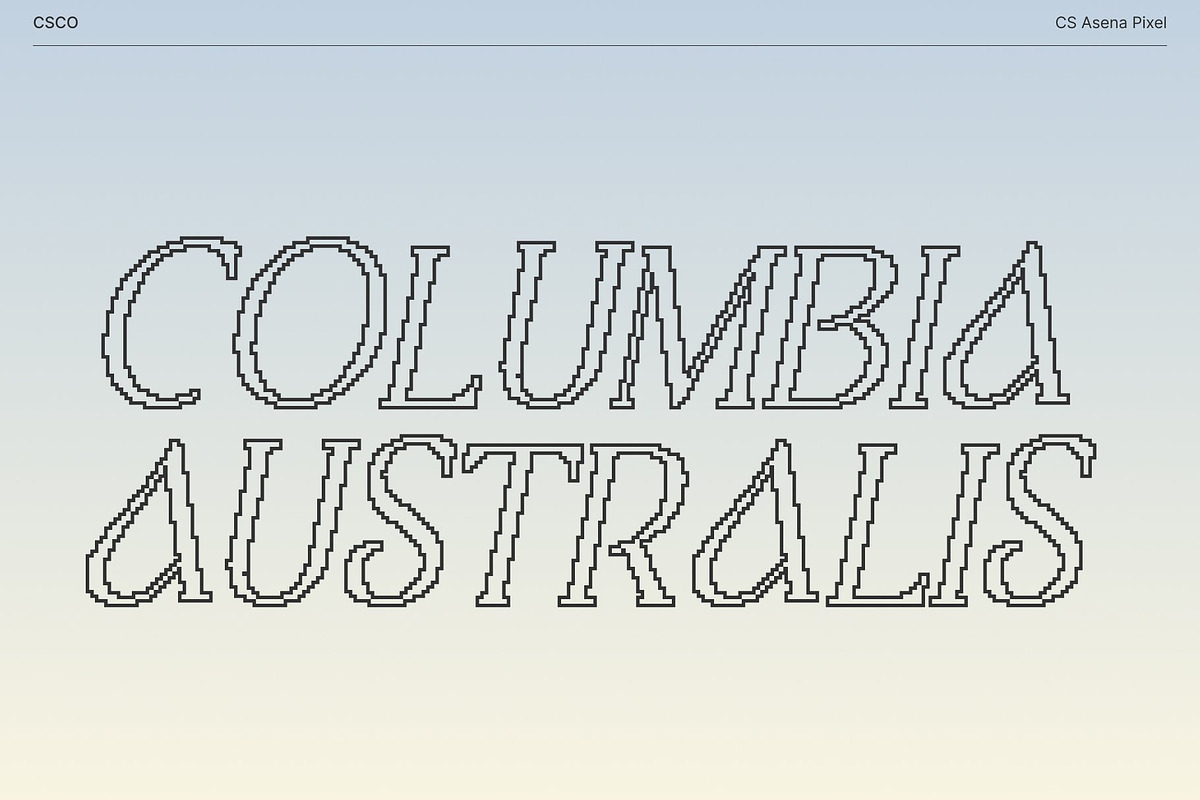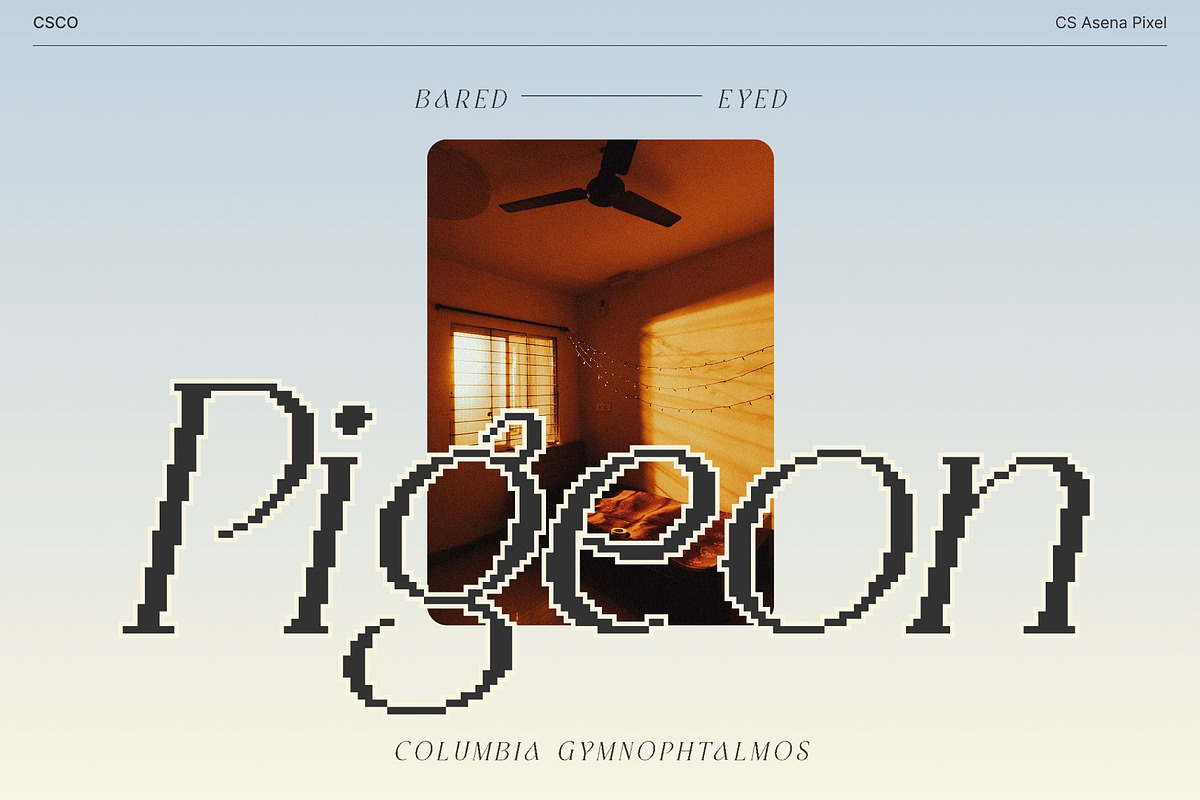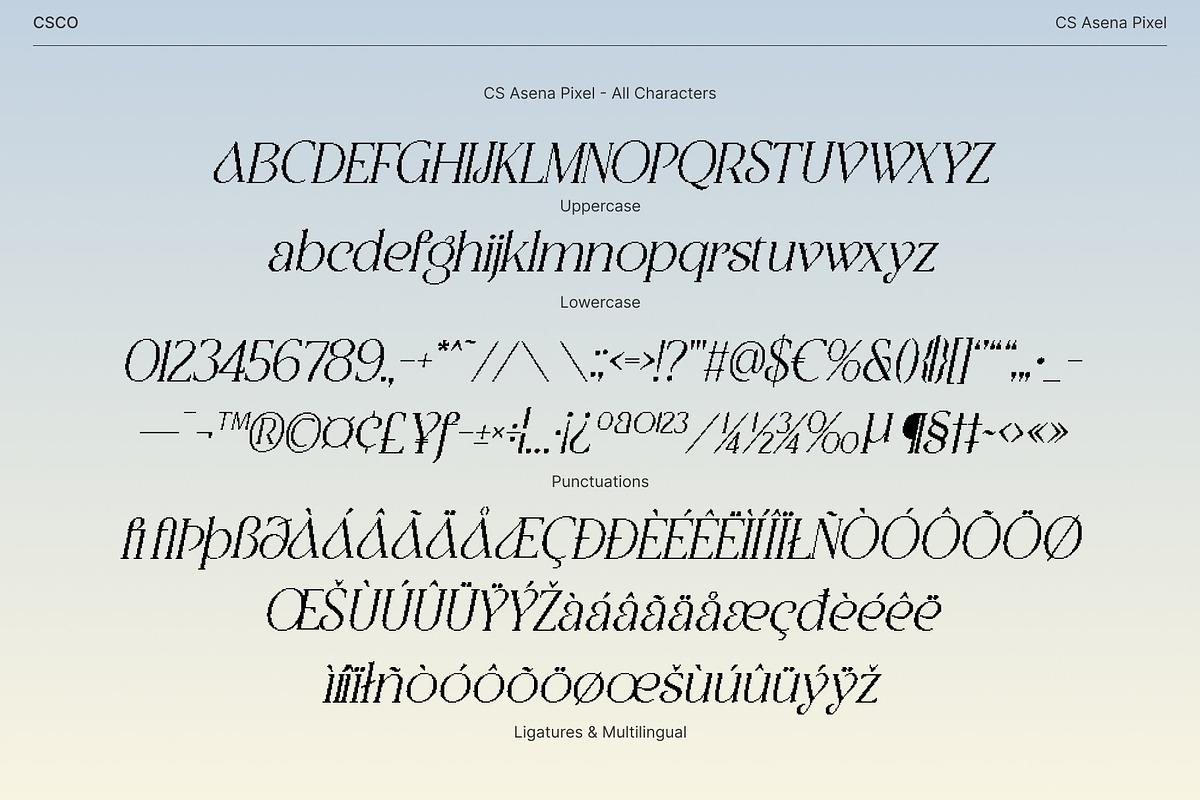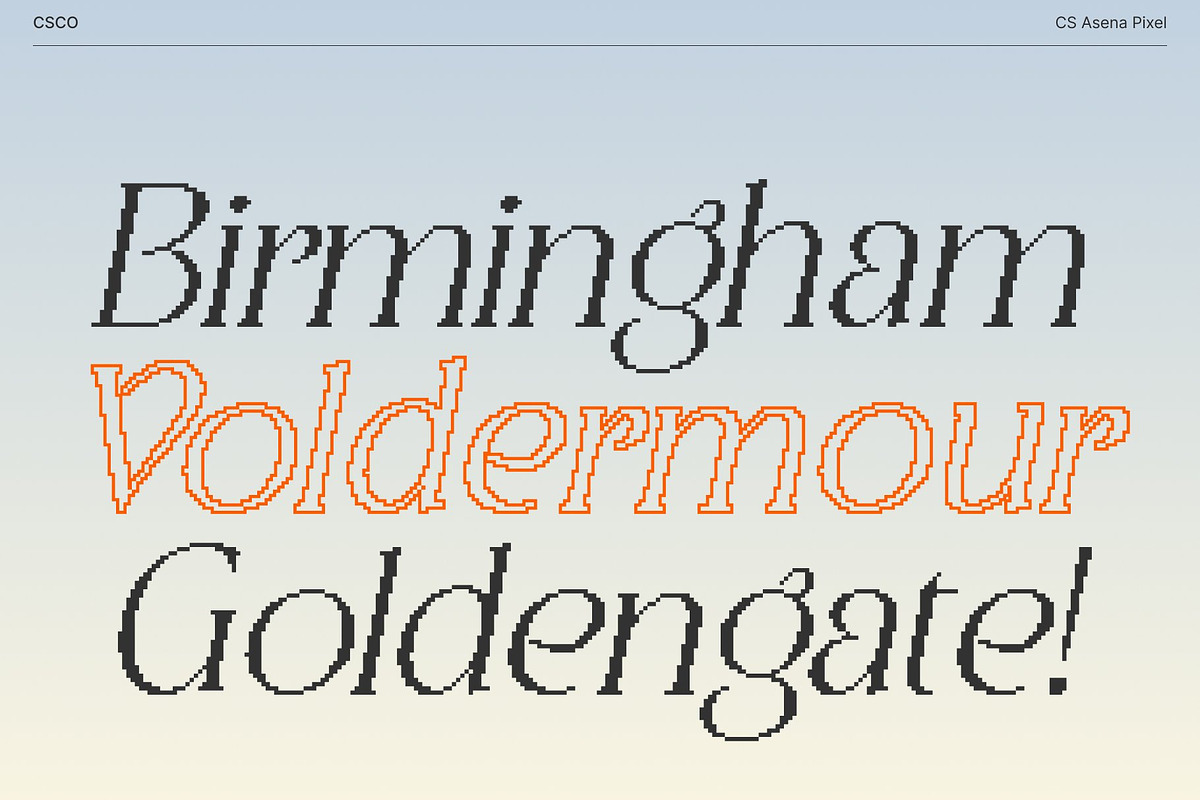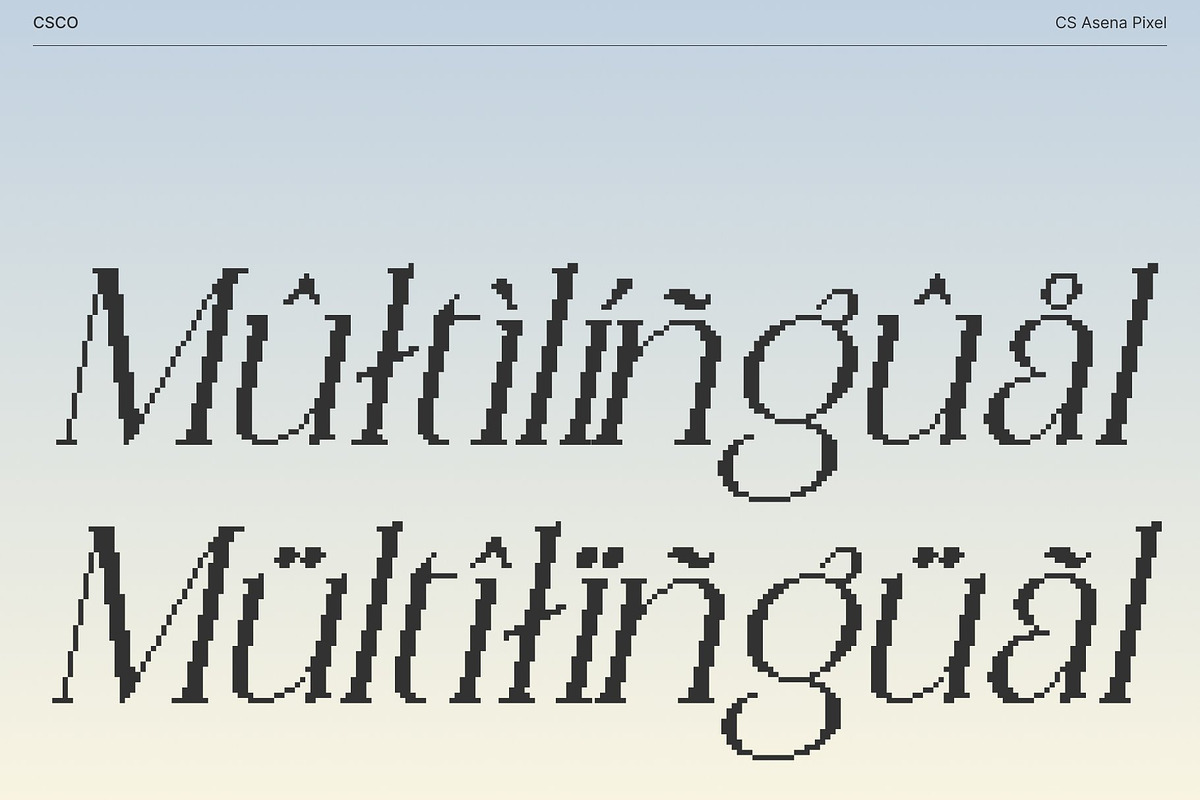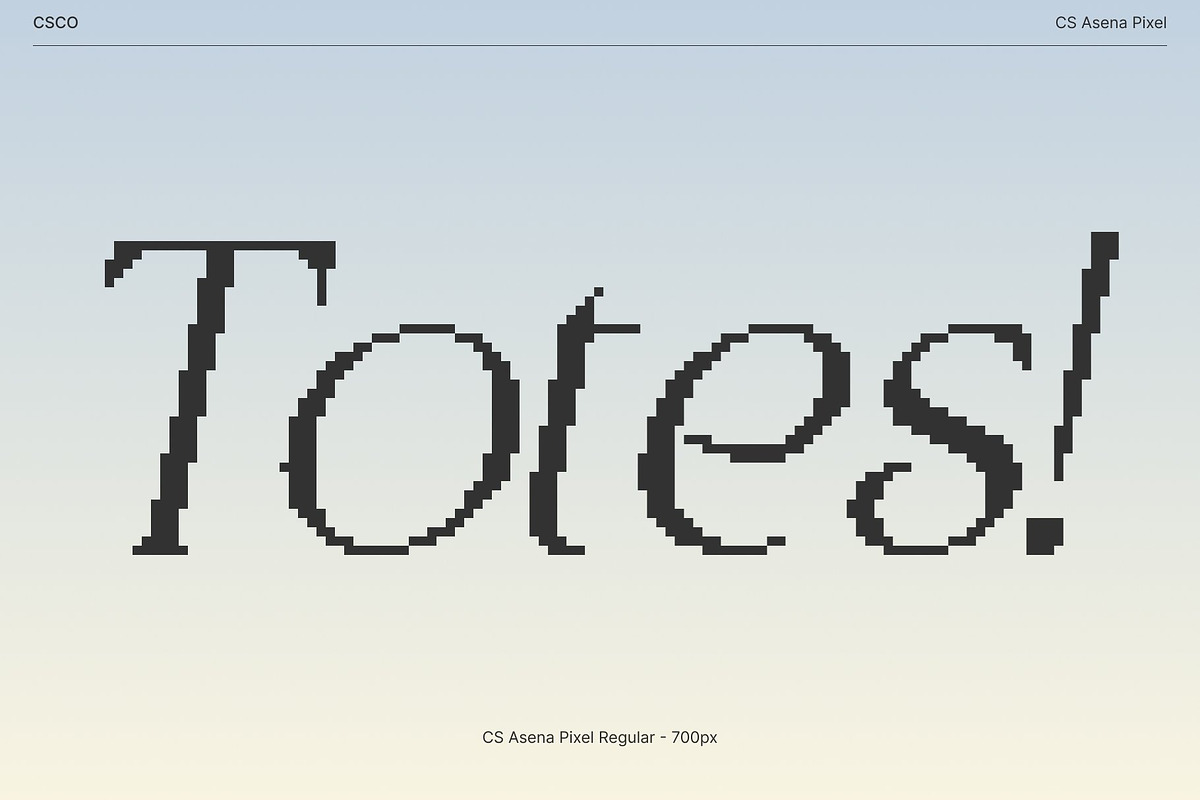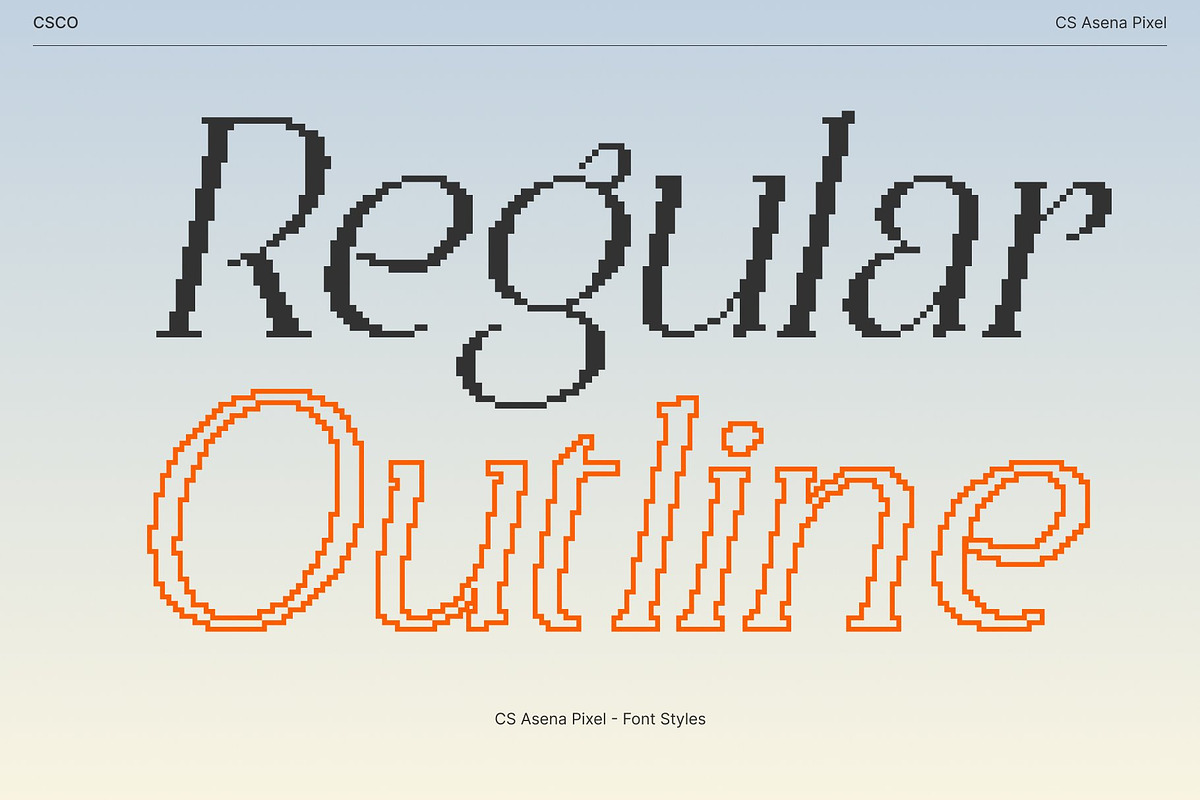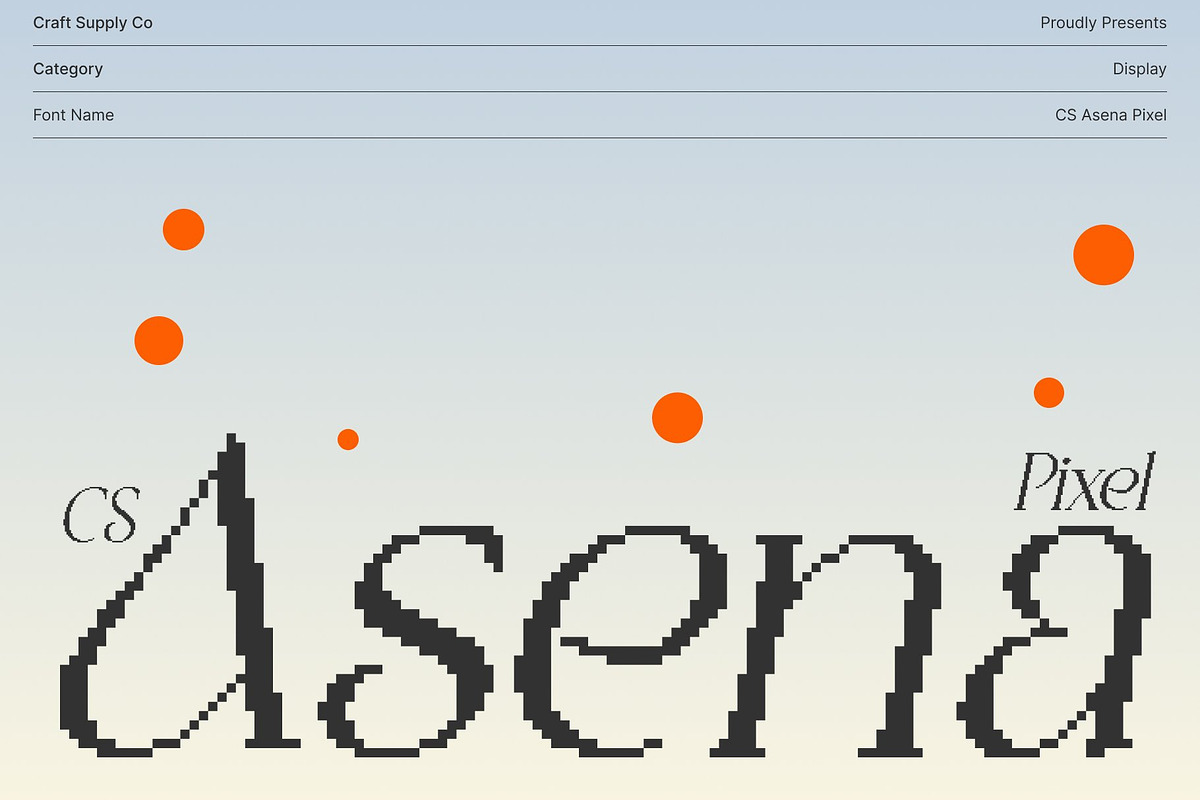
CS Asena Pixel
CS Asena Pixel – Elegant Grace with Modern Sophistication
Elegant Serif with Artistic High-End Character This is an elegant serif typeface designed to deliver a refined, high-end appearance infused with artistic grace. Its carefully sculpted letterforms and graceful proportions create a luxurious visual tone that feels timeless yet expressive. Built on classic serif foundations and enriched with modern, pixel-precise styling, this font elevates premium design projects with confidence and elegance.
Refined Curves Inspired by Art Nouveau Inspired by the flowing beauty of Art Nouveau, this font features soft, fluid curves and harmonious proportions that echo natural forms and decorative artistry. These refined details introduce a sense of movement and visual richness, giving each character an ornamental yet controlled presence. The artistic influence enhances sophistication without compromising clarity or balance.
Classic Elegance with Modern Sensibility This font seamlessly bridges traditional serif elegance with contemporary nuance. Its timeless structure ensures enduring appeal, while modern refinements keep it fresh and relevant across today’s design landscape. This balance makes the font versatile and expressive, suitable for both display typography and refined text compositions.
Perfect for Editorial, Fashion, and Branding Designed for premium use, this font excels in editorial layouts, advanced book design, luxury packaging, fashion visuals, and high-end branding. Whether applied to headlines, body text, or brand identities, it delivers artistic sophistication, elegance, and modern luxury with precision and style.
CS Asena Pixel Regular
CS Asena Pixel Outline